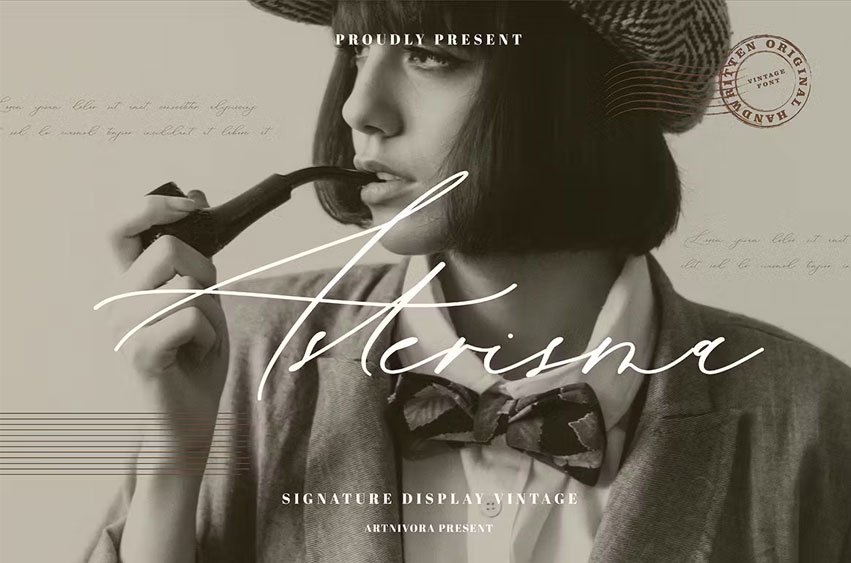
Asterisma Font is a simple and signature display font. So perfect for you who needs a typeface for logo designs, magazines, social media, brochure, and many more.
• Lowercase
• Punctuation
• Numerals
• Multilingual Support